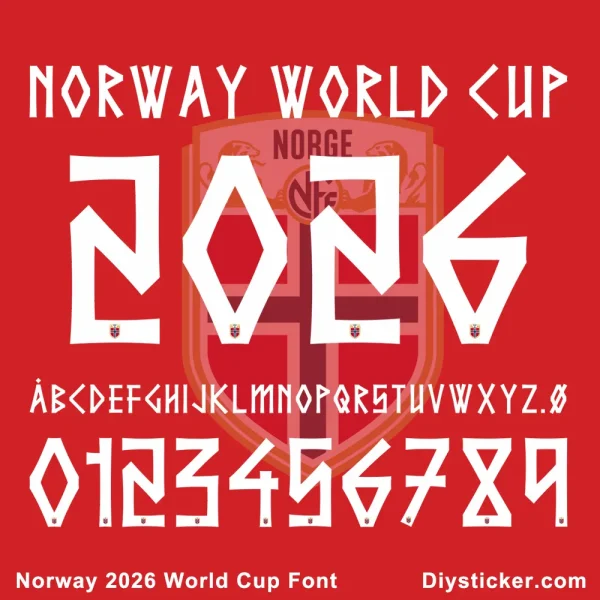
Elevate your sports design projects with the Norway 2026 World Cup Font. This typeface is meticulously crafted to mirror the bold, runic-inspired aesthetic seen on the national team’s latest kits. Whether you are a graphic designer working on a sports apparel project or a fan wanting to print your own Erling Haaland or Martin Ødegaard jersey, this pack provides everything you need.
Full Character Set: Includes A-Z uppercase letters, numbers 0-9, and special Norwegian characters (Å, Ø).
Authentic Design: Matches the sharp, geometric style of the Norway 2026 tournament cycle.